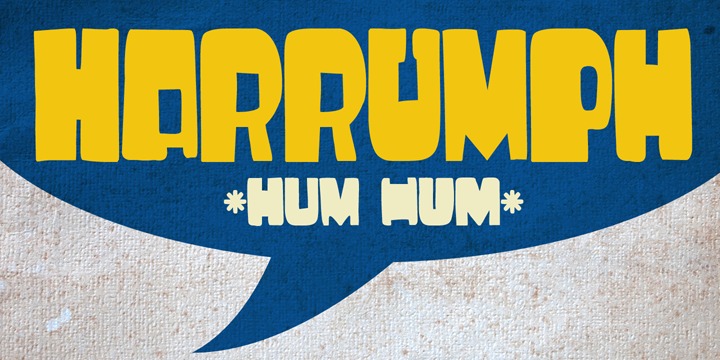
Harrumph is a fat poster style font with a retro look. It comes with contextual and stylistic alternates for every letter and has more diacritics than you can poke a stick at.